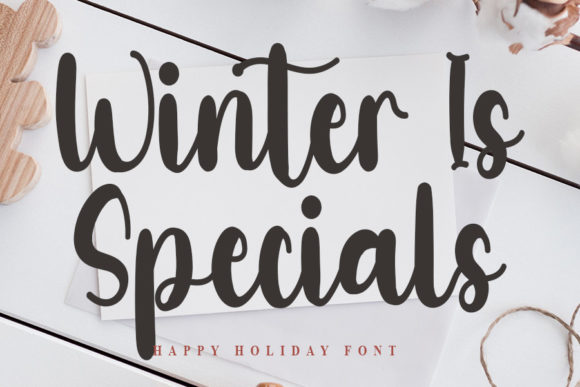
Winter is Special Font
Font Name : Winter is Special Font
Author : NYA Letter
In the vast digital realm, where words take flight and imaginations soar, there lies a font that captures the essence of winter's magic and whimsical charm: Winter is Special Font, a delightful creation by NYA Letter. This enchanting script font, with its carefree style and captivating curves, invites you on a journey into a world where letters dance and words come alive.
Winter is Special Font is not merely a collection of characters; it's an artistic expression that brings warmth and cheer to your digital creations. Its unique features, carefully crafted with love and attention to detail, will transform your designs into captivating masterpieces.
With its elegant strokes and flowing lines, Winter is Special Font evokes a sense of nostalgia and playfulness. It's the perfect choice for adding a touch of whimsy to your projects, whether you're designing logos, crafting invitations, or creating eye-catching social media posts.
Immerse yourself in the world of comics and let the expressive curves of Winter is Special Font bring your stories to life. Its dynamic style adds a touch of adventure and intrigue to your lettering, making your characters and plots jump off the page.
For those who seek a font that sparks creativity and ignites the imagination, Winter is Special Font is the answer. Its versatility knows no bounds, whether you're creating marketing materials, designing websites, or simply expressing yourself through digital art.
Don't settle for ordinary fonts that blend into the background. Embrace the magic of Winter is Special Font and watch your creations transform into captivating works of art. Let your words dance with grace and charm, and experience the joy of making a lasting impression on your audience.
Dive into the enchanting world of Winter is Special Font today and unlock a treasure trove of creative possibilities. Embark on a journey where imagination reigns supreme and let the magic of this whimsical font weave its spell on your digital creations.